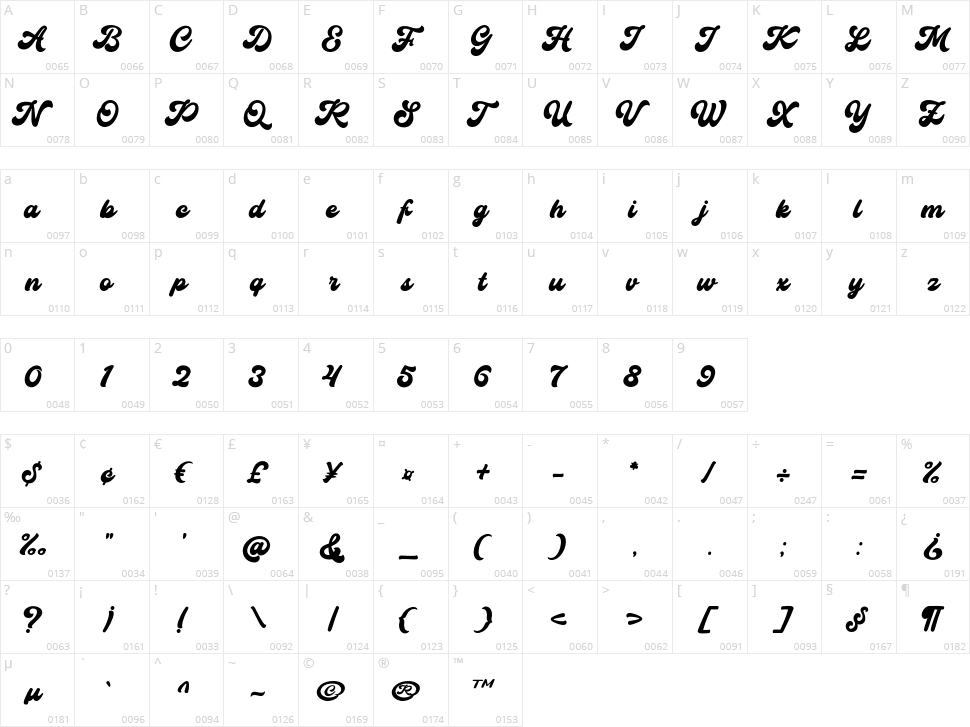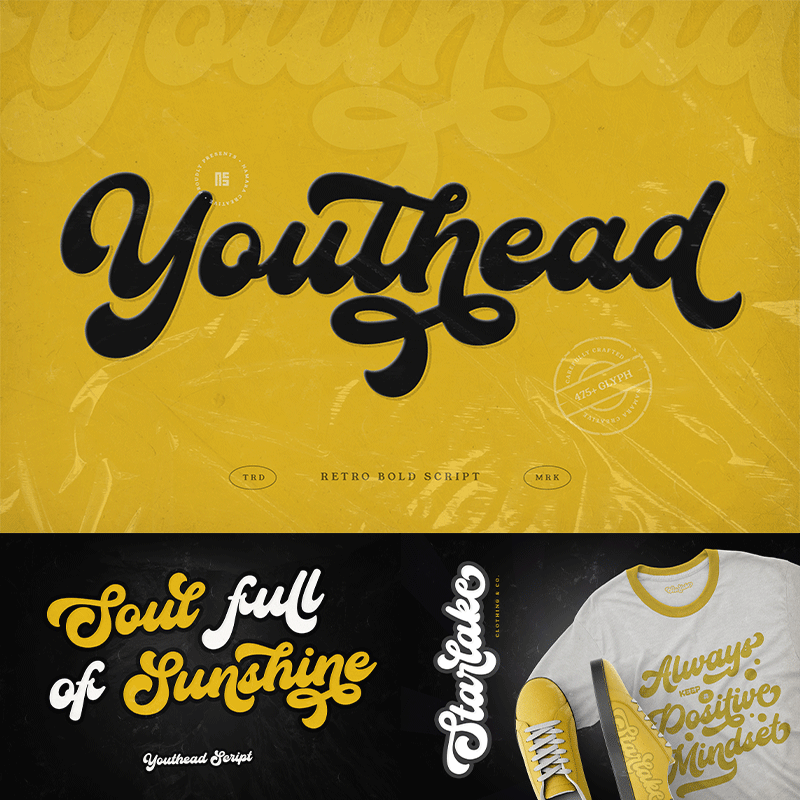
Youthead Script
The perfect blend of vintage charm and contemporary elegance. Make your project memorable and stylish with the unique charm of retro-modern typography.
Features :
- Full set of standard characters and punctuations.
- Alternates, ligatures, swashes and multilingual support.